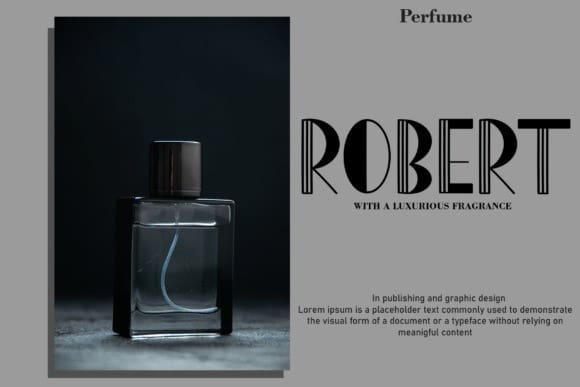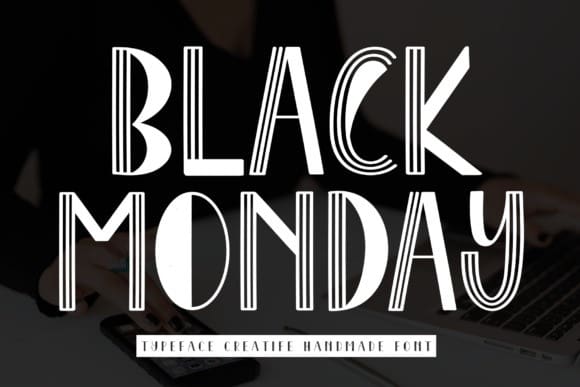
Black Monday Font
Black Monday Font is a sweet and friendly handwritten display font. The font suggests its use for creating invitations, event posters, advertisements, and anything that requires a fancy art form.